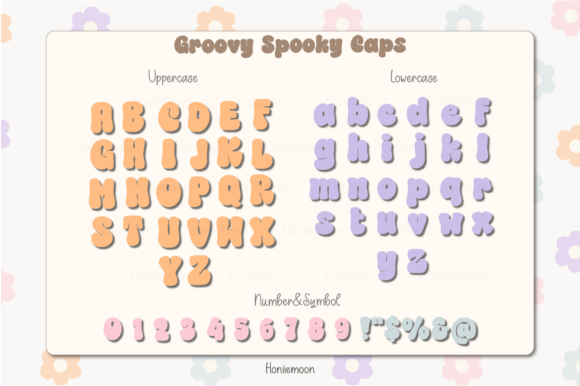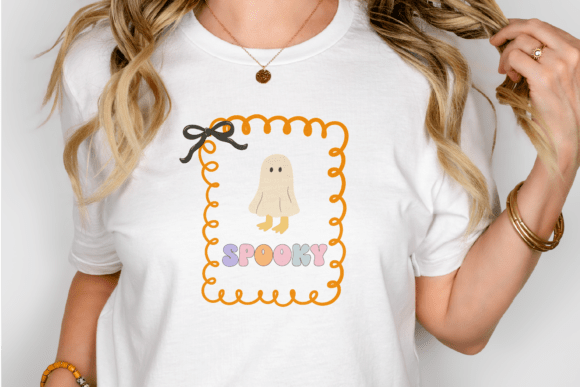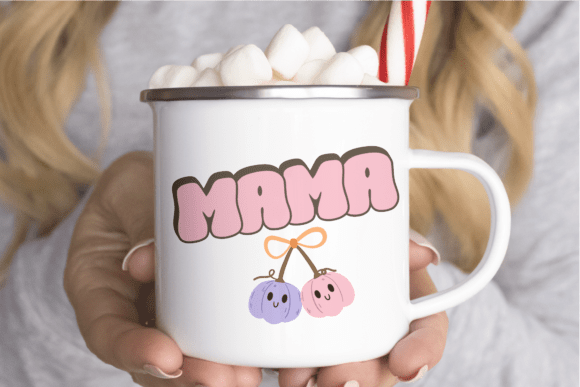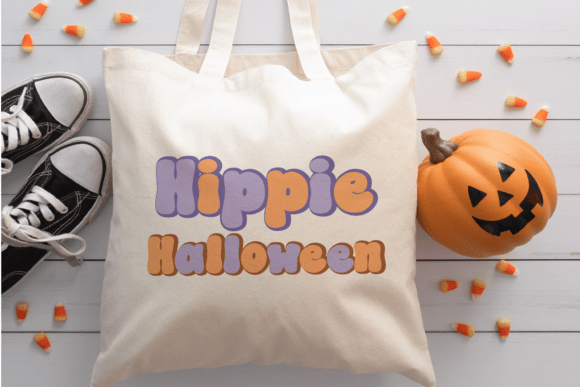
Unleash Your Creativity with Groovyspooky Font: The Ultimate Playful and Bold Display Font
Are you looking for a font that adds a touch of whimsy and playfulness to your creative projects? Look no further than the Groovyspooky Font! This bold and eye-catching display font is perfect for designers, crafters, and artists who want to make a statement with their work. With its unique blend of retro charm and spooky flair, Groovyspooky Font is sure to elevate your designs to the next level.
What Makes Groovyspooky Font So Special?
Groovyspooky Font is a one-of-a-kind display font that boasts a playful and bold personality. Its retro charm and spooky flair make it perfect for a wide range of creative projects, from posters and flyers to social media graphics and party invitations. Whether you’re designing for a holiday party, a spooky movie night, or just want to add some personality to your brand, Groovyspooky Font has got you covered.
The versatility of Groovyspooky Font is one of its best features. This font can be used across a wide range of design projects, including:
- Social media graphics and quotes
- Movie and book titles
- Party invitations and decorations
- Stickers and labels
- T-shirts and apparel
- Advertisements and marketing materials
With Groovyspooky Font, the possibilities are endless! You can use it to create eye-catching designs that grab attention and leave a lasting impression.
Inspiration and Creative Ideas
To help spark your creativity, the image presentations shown are for inspiration only and demonstrate creative ideas for applying text effects, colors, and layouts using Groovyspooky Font. These examples will give you a starting point for exploring the many ways you can use this font to elevate your designs.
Tips and Tricks for Using Groovyspooky Font
Here are a few tips and tricks to help you get the most out of Groovyspooky Font:
- Experiment with different text effects, such as bold, italic, and underline, to add emphasis and personality to your designs.
- Play with color and texture to give your designs a unique and eye-catching look.
- Use Groovyspooky Font in combination with other fonts to create a bold and playful contrast.
- Don’t be afraid to get creative and try new things – Groovyspooky Font is designed to be versatile and adaptable!
Groovyspooky Font is the perfect addition to any designer’s toolkit. With its playful and bold personality, retro charm, and spooky flair, it’s sure to elevate your designs and make a lasting impression. Whether you’re a seasoned pro or just starting out, Groovyspooky Font is a must-have for anyone looking to add some whimsy and creativity to their work. So why wait? Get your hands on Groovyspooky Font today and start creating!